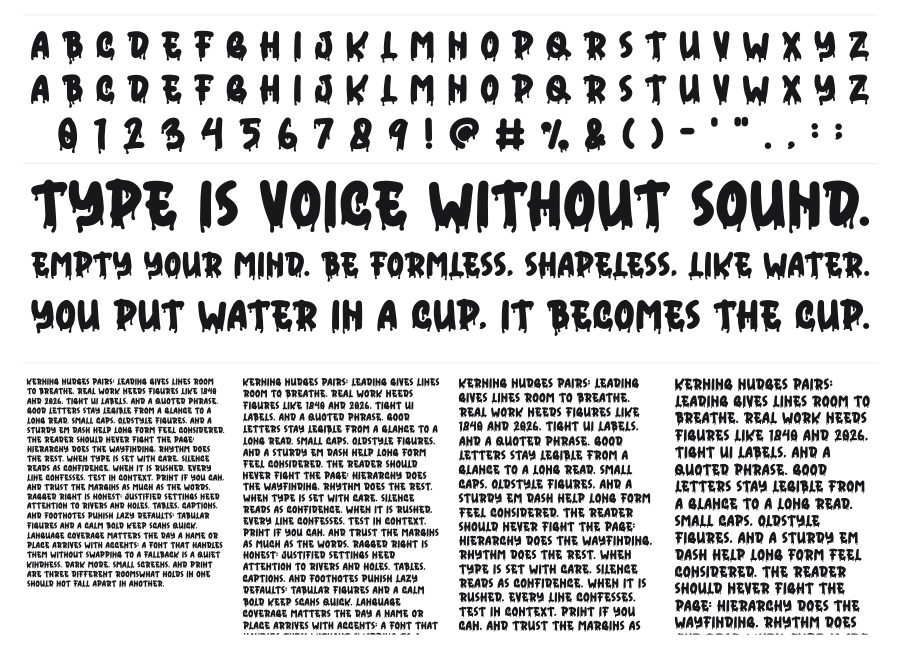
Devil Horror Handwritten
Devil Horror Handwritten is a bold, dripping horror display font with thick hand-painted characters and liquid trails hanging from each letter. The irregular stroke edges and slime-drop details give it an immediately recognizable Halloween and horror-comic character. Strong for posters, event flyers, game titles, and any seasonal packaging that needs a menacing but legible headline.